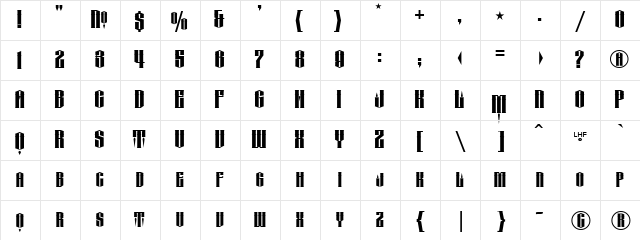
Complete LHF Conclave SHARP reg Regular glyph index. Displaying only characters natively supported by LHF Conclave SHARP reg Regular font.
LHF Conclave SHARP reg is a composed and adaptable typeface that performs quietly and consistently across a wide range of design contexts.